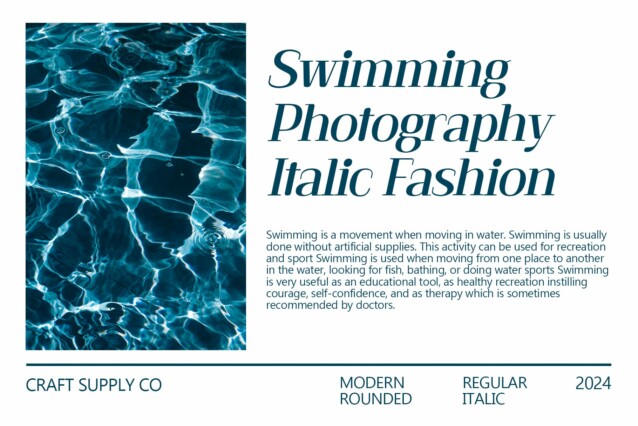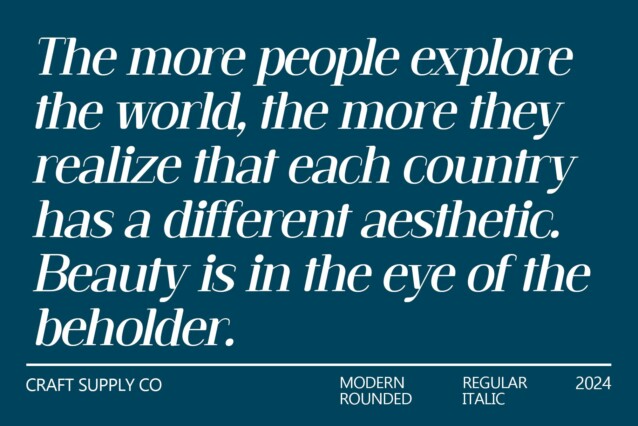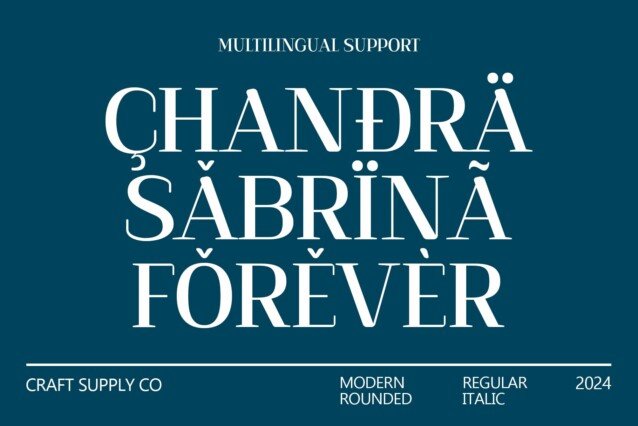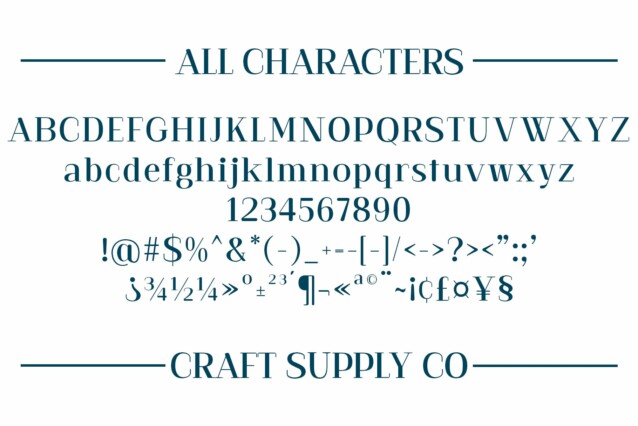
Alkalis Rounded Font
Alkalis Rounded Font: The Epitome of Elegance. Rounded Contrast Alkalis Rounded features high-contrast serif characters with soft, rounded edges. This unique combination exudes elegance and sophistication, setting it apart from traditional serif fonts.
Elegance in Simplicity The simplicity of This font belies its undeniable elegance. Its rounded serifs soften the overall appearance, adding a touch of refinement to any project.